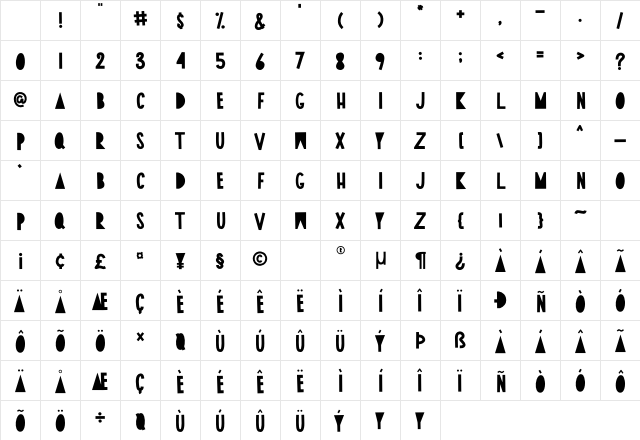
Complete Goes To Japan Regular glyph index. Displaying only characters natively supported by Goes To Japan Regular font.
Goes To Japan is a composed and adaptable typeface that performs quietly and consistently across a wide range of design contexts.